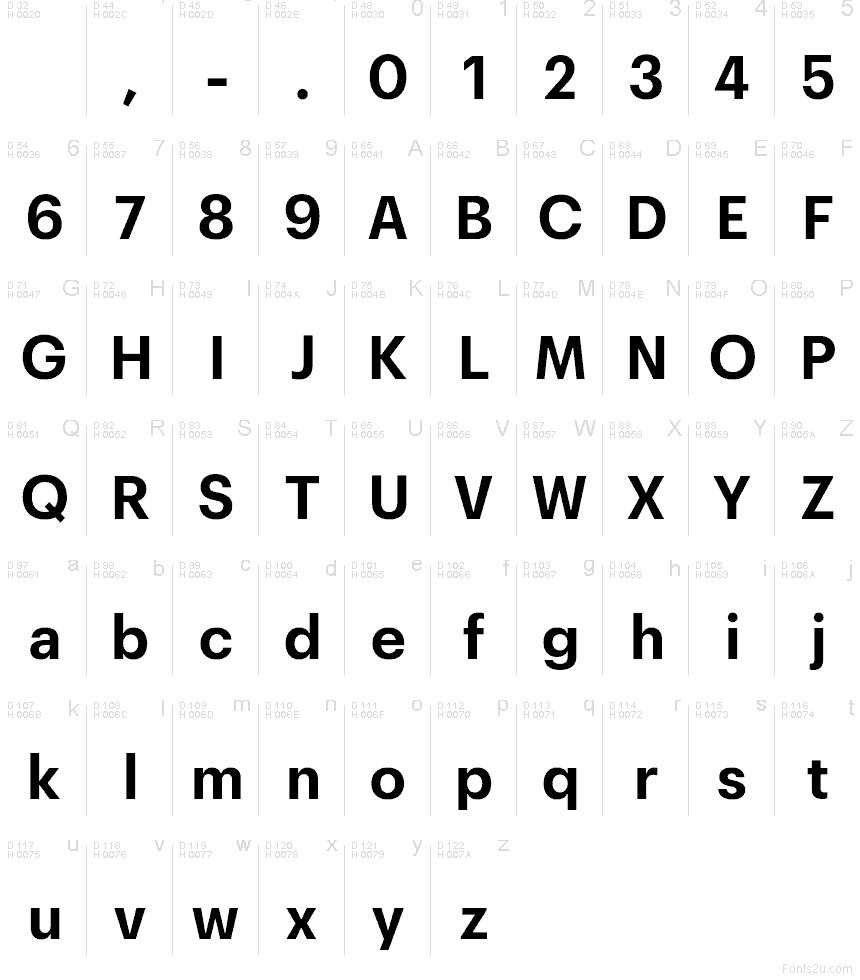
Encamp Test Bold
Encamp Test Bold font by Punchform is a free bold sans serif typeface that gives you strong impact without visual noise. The Encamp Test family here feels blocky and grounded, with sturdy strokes and clean, square-ish curves that hold up at both large and mid sizes. It’s the kind of bold that reads instantly, with tight, efficient spacing that keeps headlines compact and punchy on cramped layouts or small screens.
Using Encamp Test Bold, you can lock in clear hierarchy for app interfaces, dashboards, pitch decks, banners, posters, and social media graphics where you need fast legibility. This free font thrives when you push it a little larger for titles, then pair it with a lighter grotesque or system sans for body text. The result is a confident, utilitarian voice that feels modern but not flashy, ready for serious brands and straightforward communication.